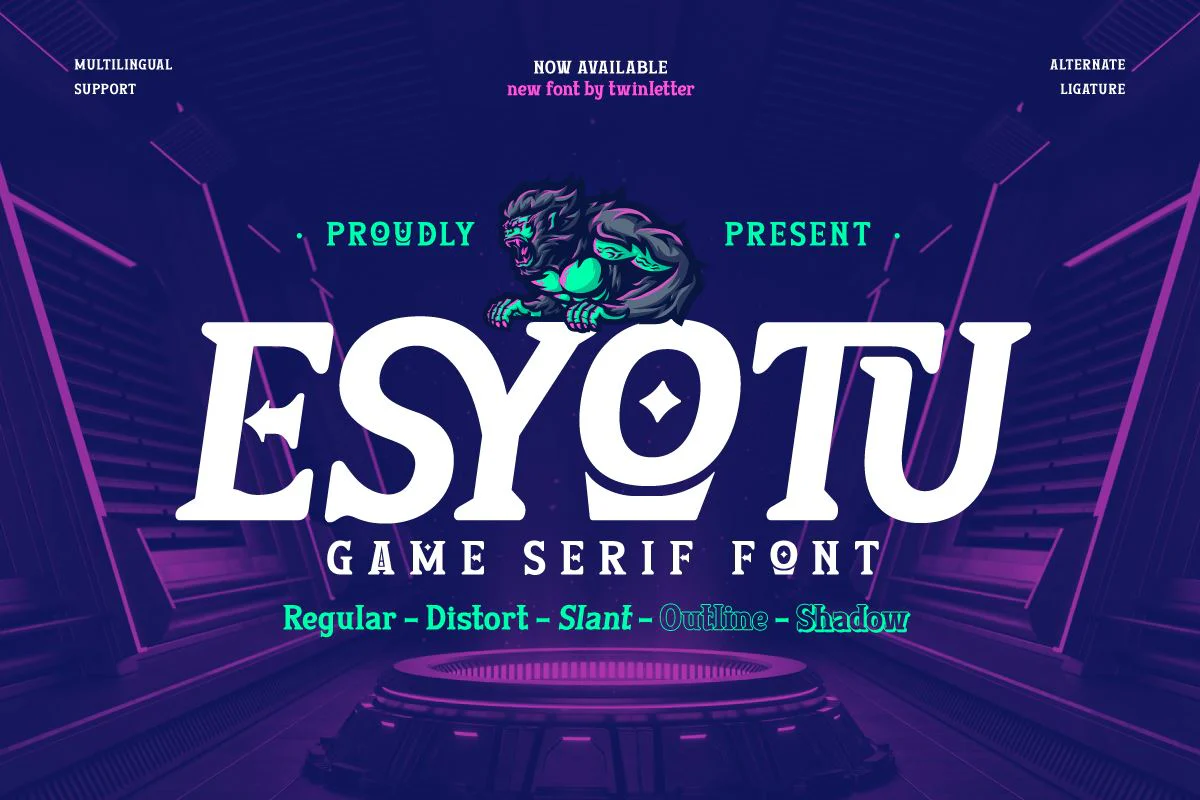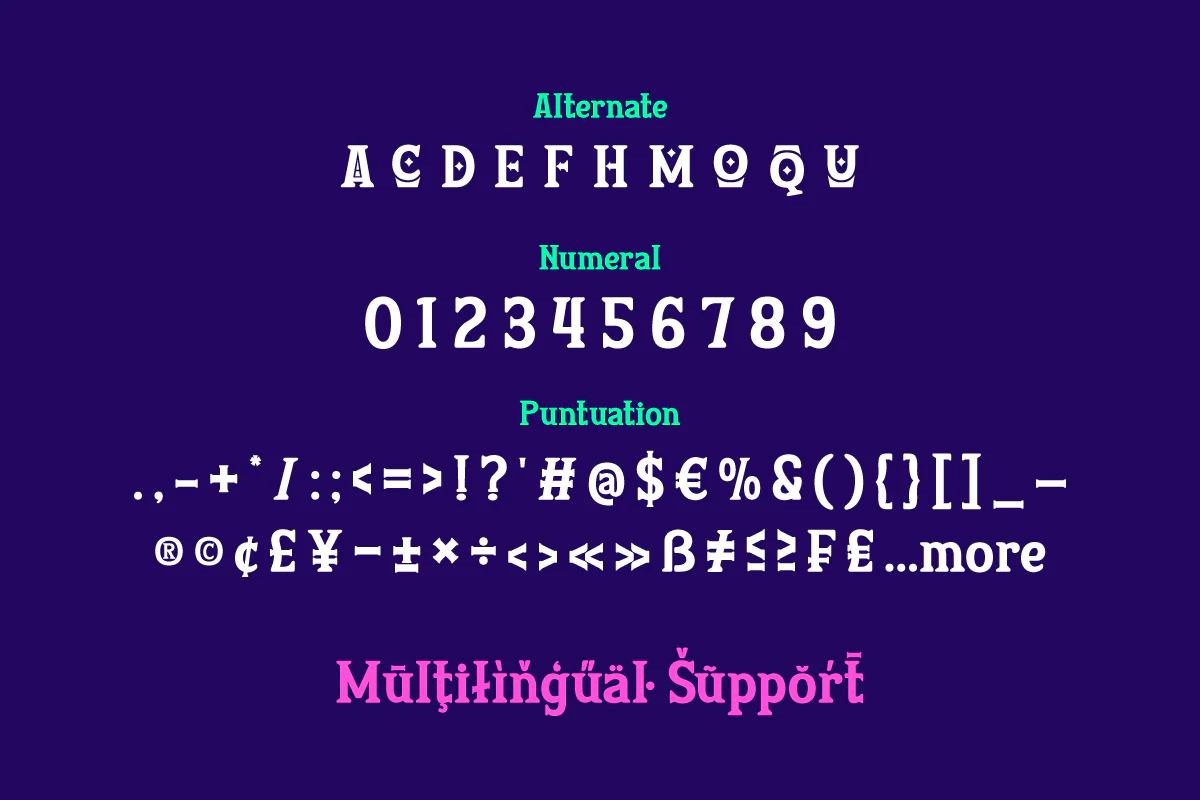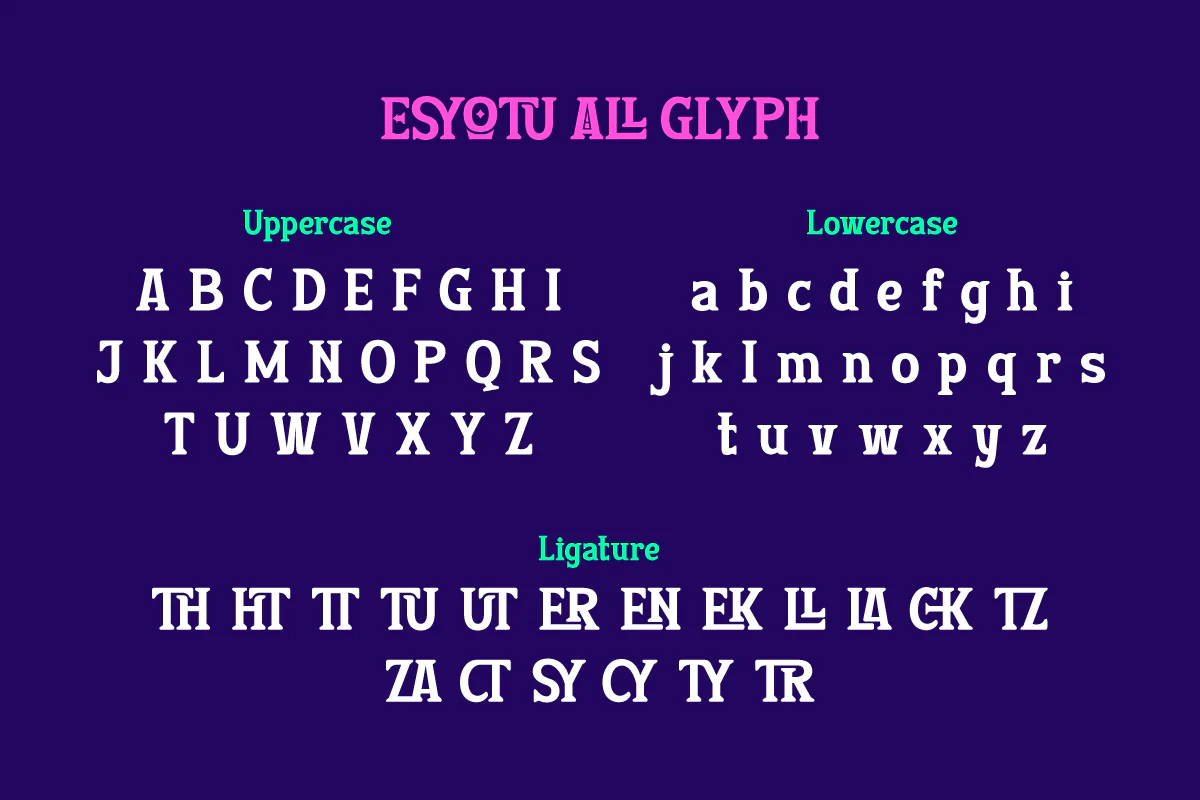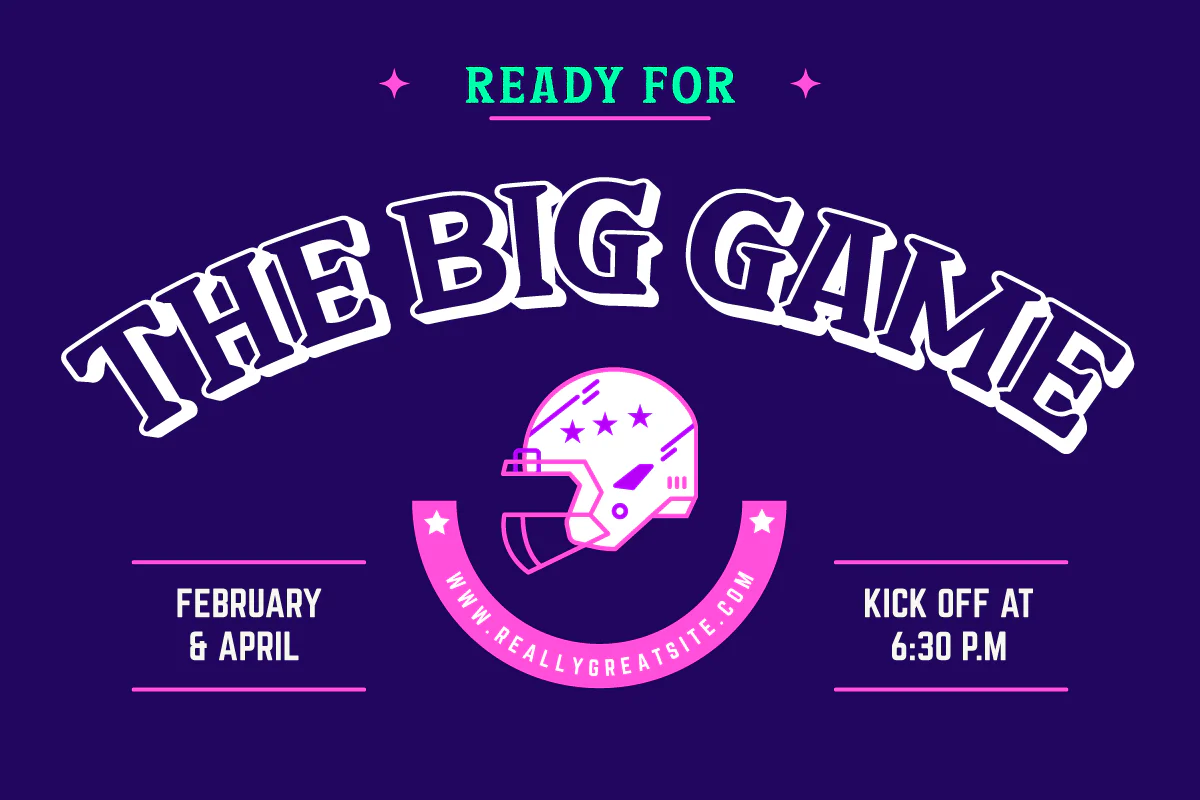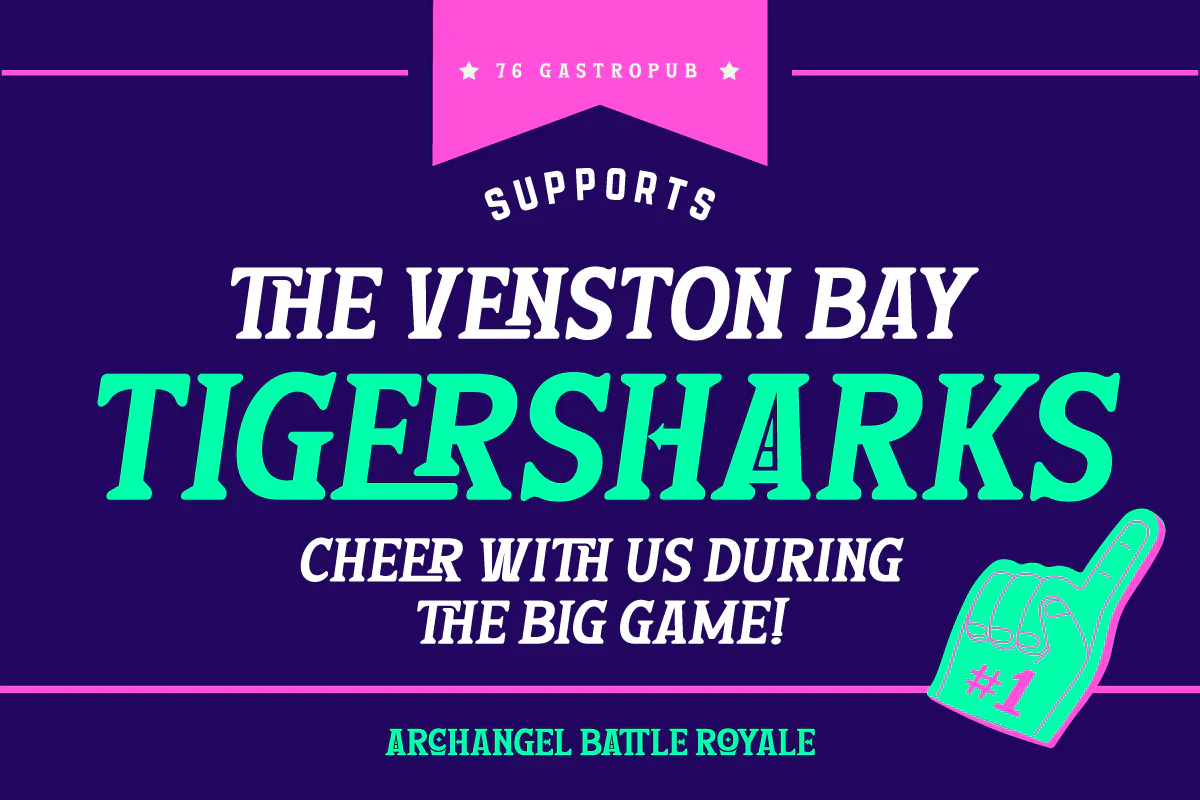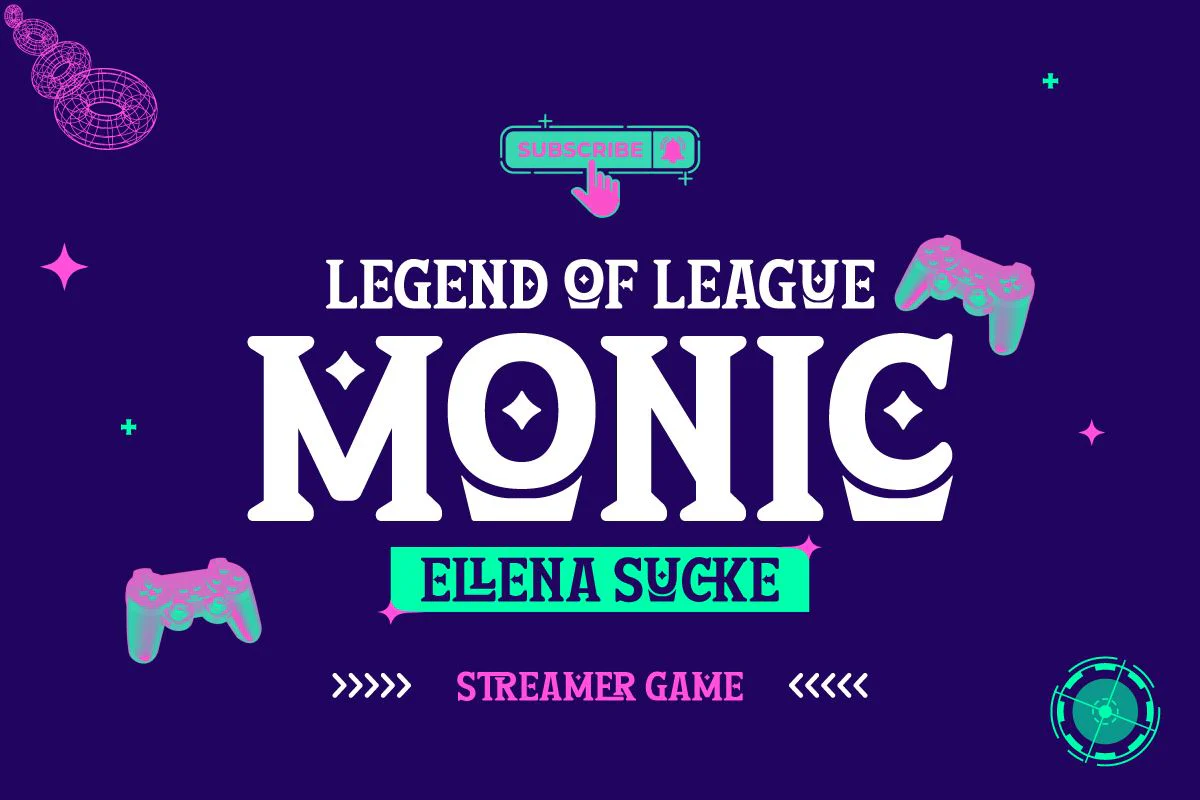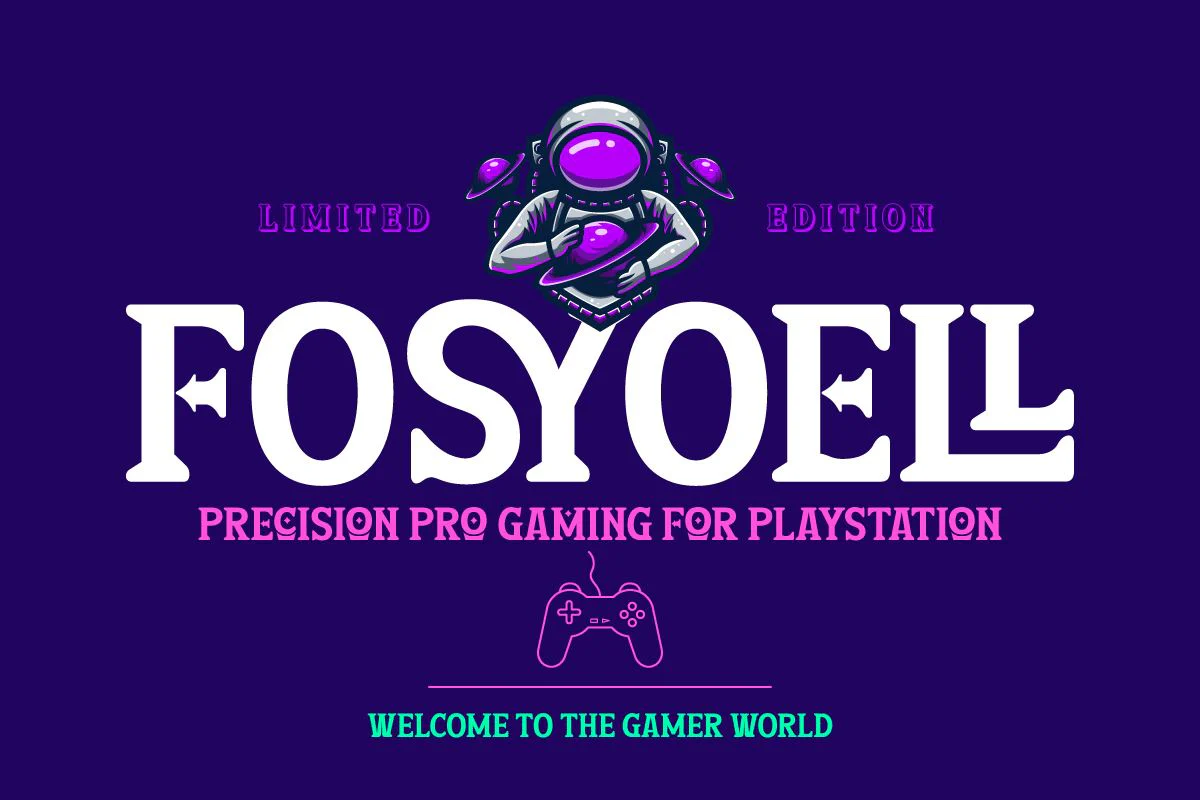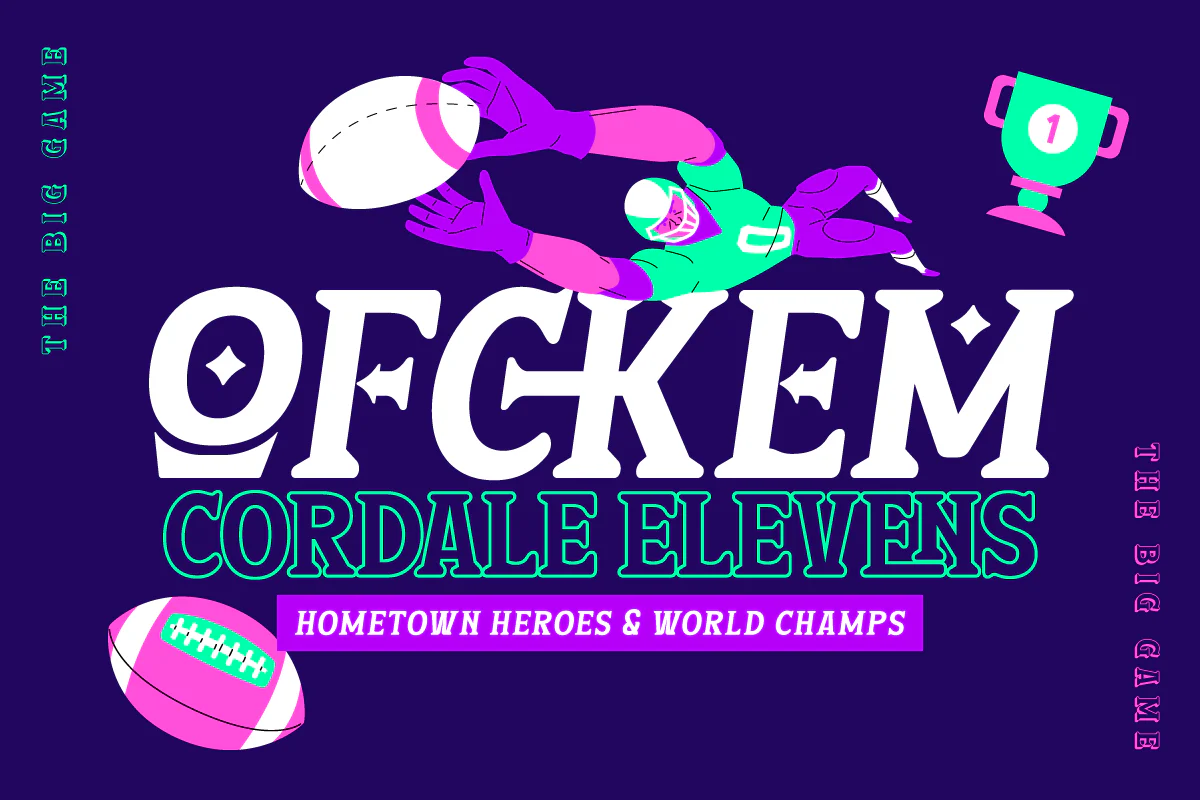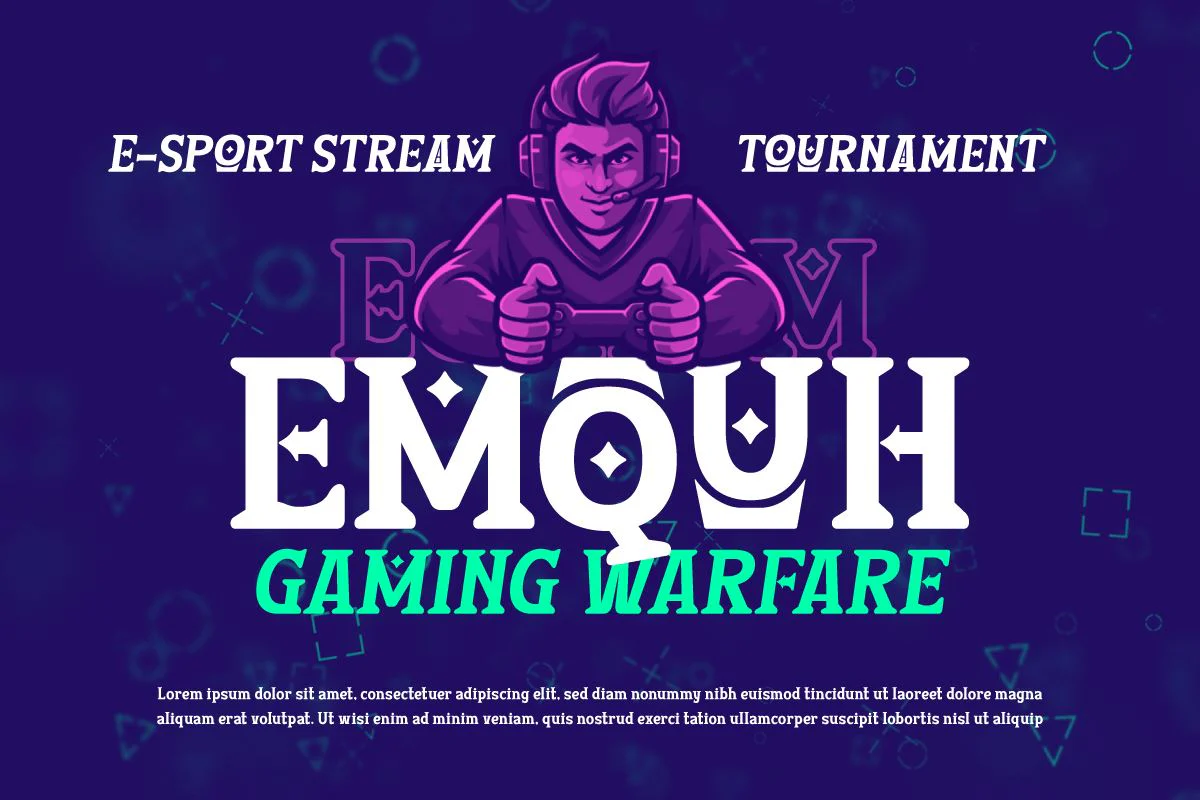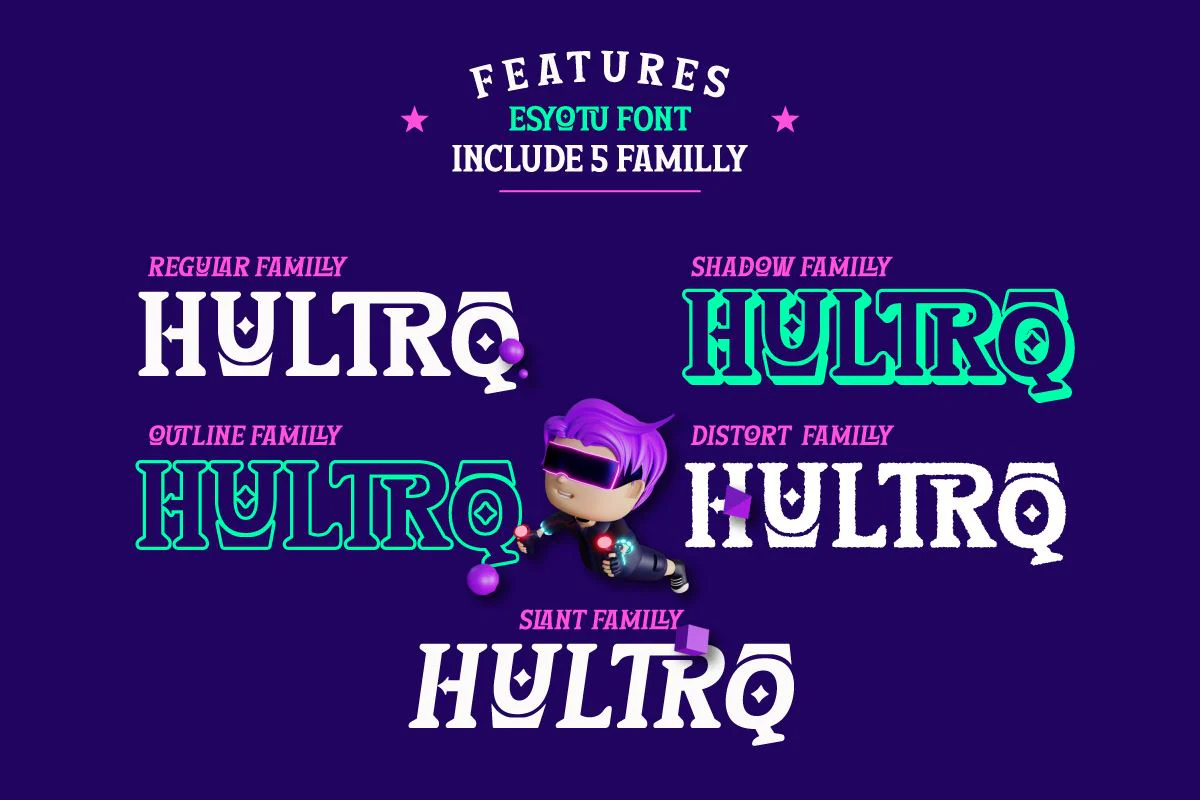
Esyotu - Serif Game Font
Embrace epic beauty in gaming typography with Esyotu, a serif font designed to amplify every design's spirit of adventure and wonder. Esyotu brings strong and dynamic serif elements, creating a classic look presented with a modern and inviting touch. Each letter of Esyotu tells an exciting story, with sturdy certificates and stunning detail. Perfect for game titles, in-game text, or other design elements, Esyotu provides a classic feel combined with a stylish gaming spirit. Esyotu's uniqueness lies in its ability to depict epic nuances and magic in each character. From fantasy worlds to action-packed RPG games, these fonts are ready to provide a striking and engaging typographic identity. With Esyotu, your every game design will be elevated to a new level. Bring the timeless beauty of serifs and a powerful gaming atmosphere to your projects, and let Esyotu be the visual catalyst that takes your gaming experience to the next level. What’s Included: - File font OTF, TTF, WOFF, WOFF2, CSS, HTML - All glyphs and variation - We highly recommend using a program that supports OpenType features and Glyphs panels like many Adobe apps and Corel Draw so that you can see and access all Glyph variations. - PUA Encoded Characters – Fully accessible without additional design software. - Fonts include Multilingual support